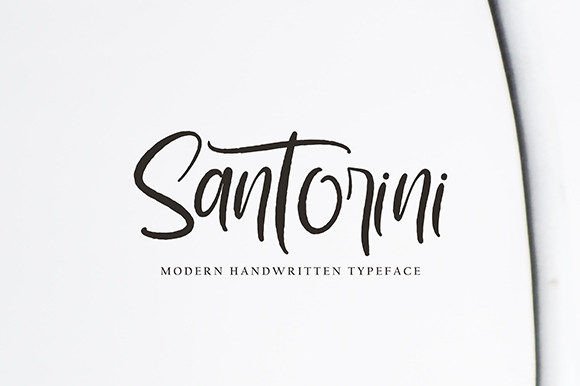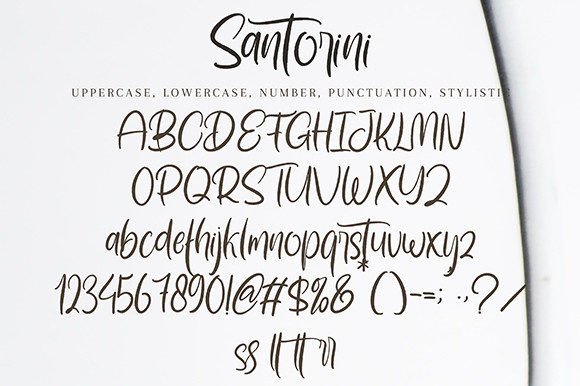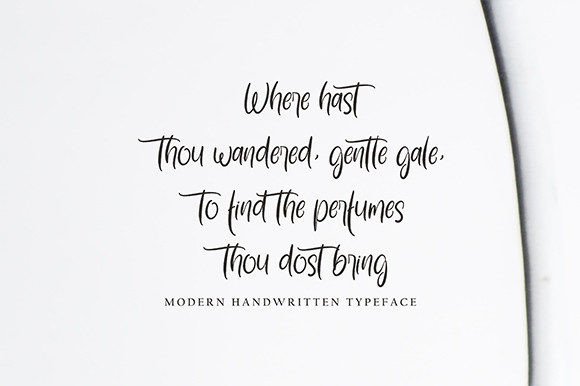
Santorini Font
Bring Elegance to Your Designs with Santorini Font
Santorini Font is a beautifully flowing handwritten script that radiates elegance and charm. Its graceful curves and delicate letterforms make it a fantastic choice for anyone looking to add a timeless, romantic feel to their designs. From wedding stationery to branding, this font enhances every creation with its soft and luxurious touch.
Perfect for Weddings, Branding, and More
Santorini Font is versatile enough to work across a wide variety of creative applications. You can confidently use it for:
• Wedding invitations and save-the-date cards
• Elegant logos and high-end branding
• Social media graphics with a personal feel
• Product packaging and boutique signage
• Greeting cards, quotes, and blog headers
With its refined aesthetic, the font immediately adds a high-end look to both digital and printed designs.
Easy to Use and Designed to Impress
As a designer or DIY creator, you’ll appreciate the way this script font brings attention to your content while maintaining readability and polish.